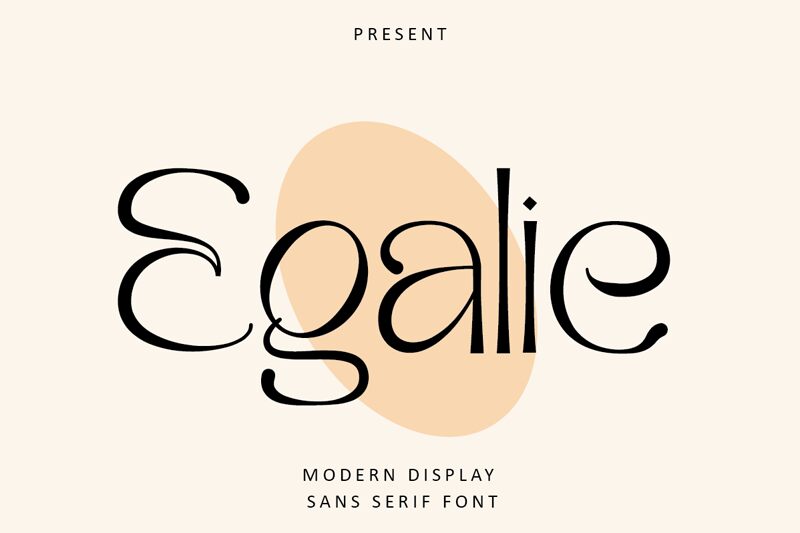
Egalie
Introducing Egalie, a retro-inspired light weight sans serif display font designed by Muksal Creative. Perfect for creating eye-catching posters, book covers and headlines with a nostalgic feel.